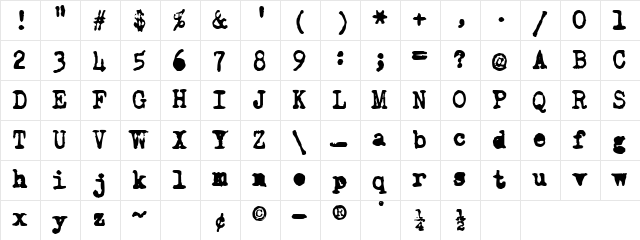
Complete Old Typewriter Simplified glyph index. Displaying only characters natively supported by Old Typewriter Simplified font.
Old Typewriter uses fixed-width spacing throughout, giving it the structured, systematic character associated with coding environments and technical documentation.
Pro Tip: Use Old Typewriter with slightly increased line-height for extended reading - fixed-width spacing can feel dense in longer passages without extra breathing room.